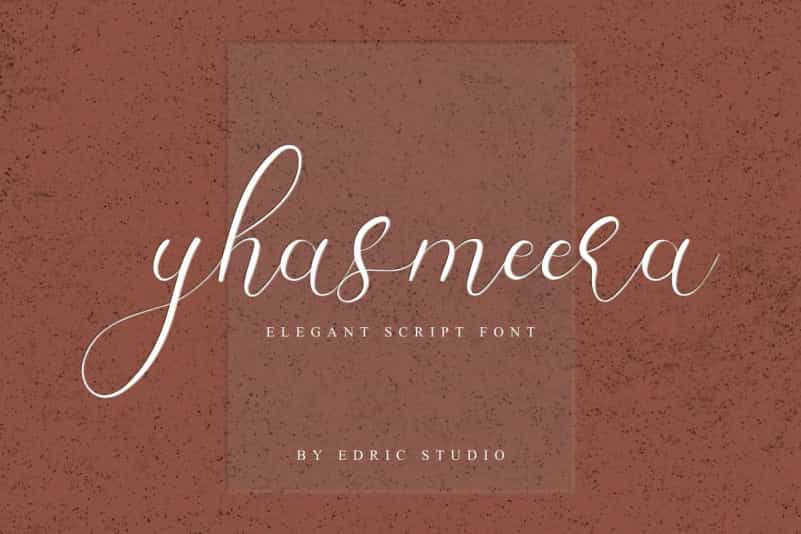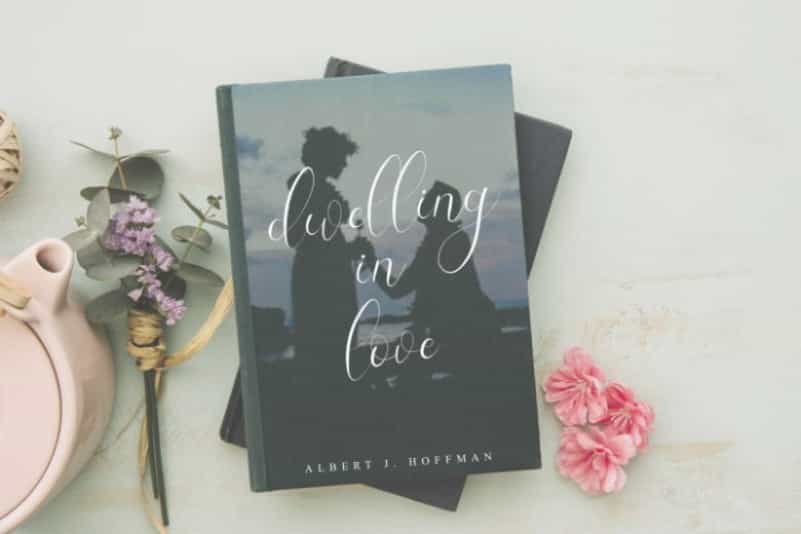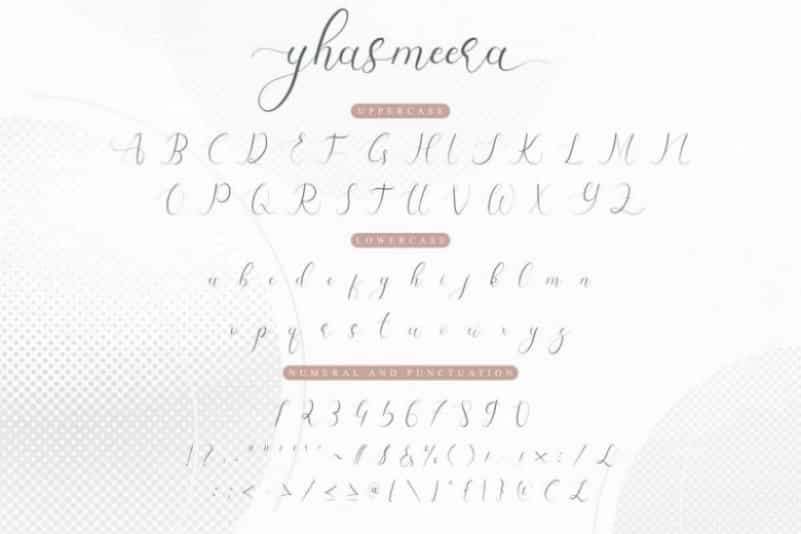
Yhasmeera font has the most beautiful calligraphy style that is unique and exclusive. The characters of this font are smart, femaleish, glamorous, luxurious and elegant. With these styles you can explore many industries and designs categories : Wedding, Advertising, Display, Music ,Cafe florist, gardening, music designer etc.